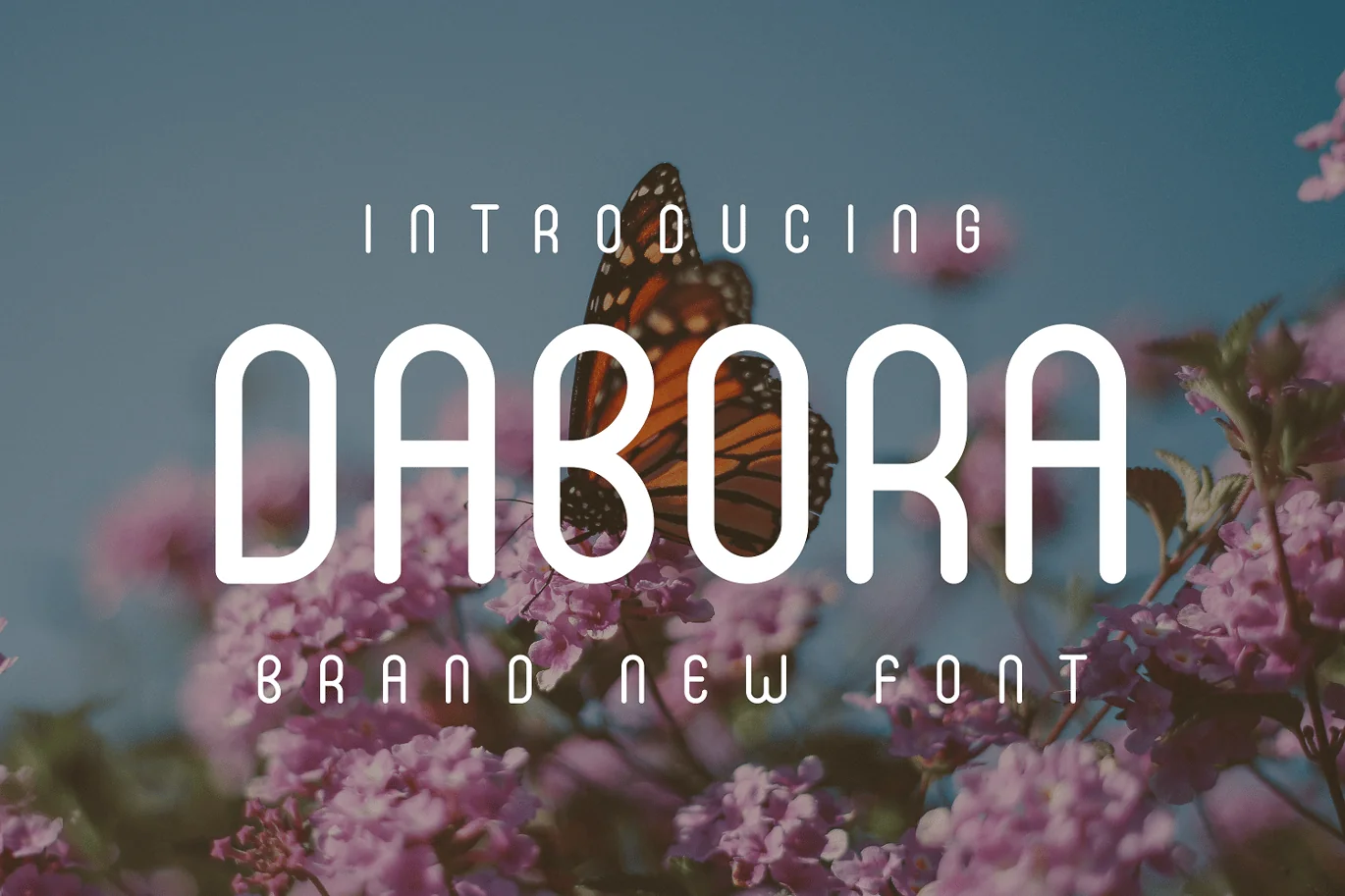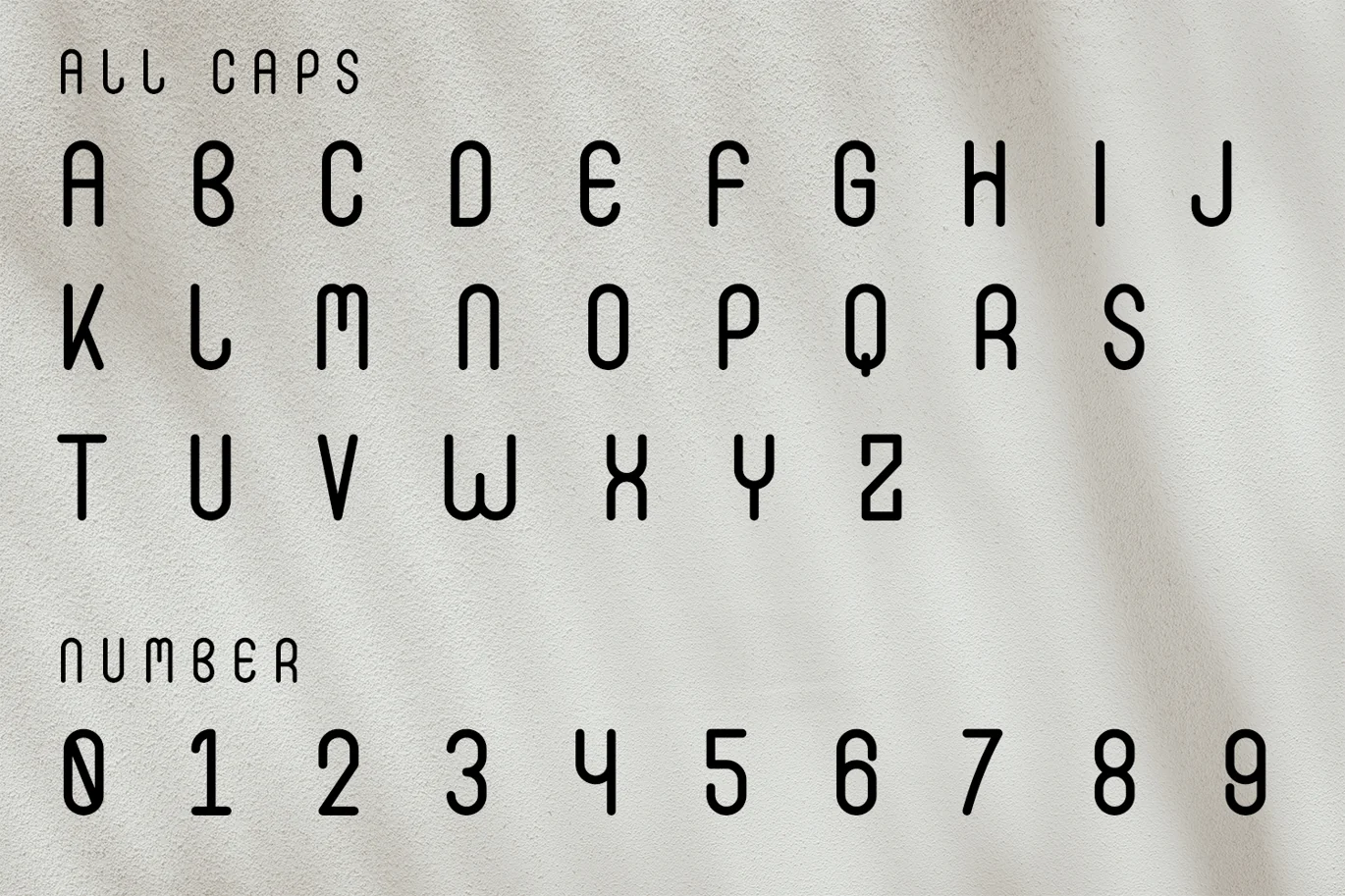
Dabora Font
Dabora is Modern font with a sans serif style.
Perfectly suited on print/screen; it can be used freely for logotypes,
e-books and mobile applications and is especially food for headlines, banners, posters,
web-sites, magazines, etc.